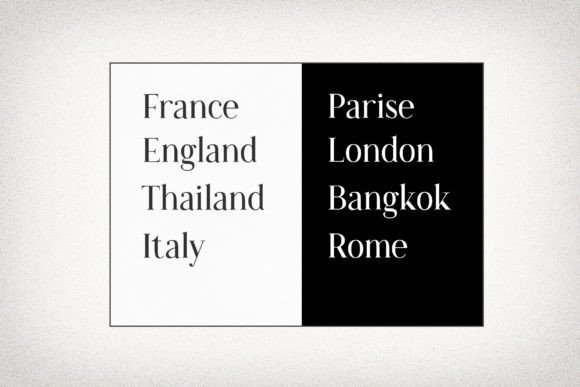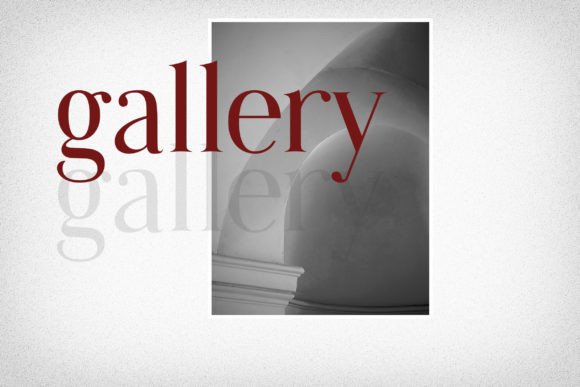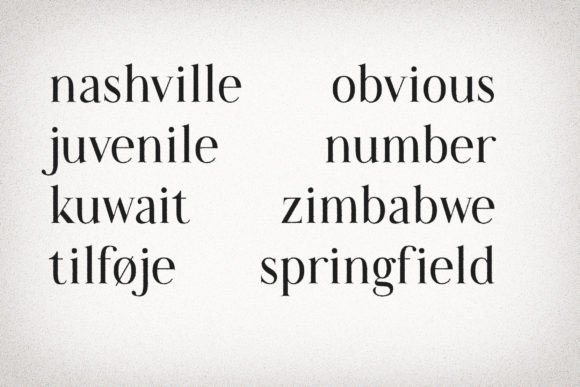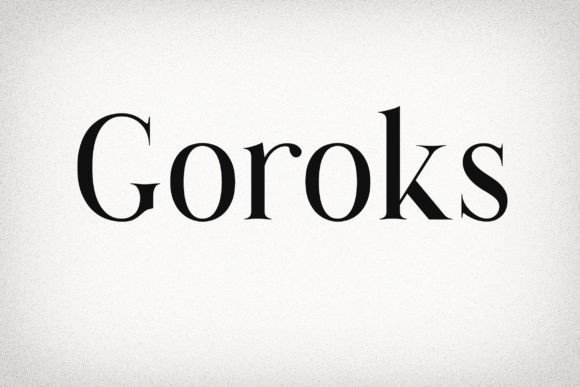
Introduction to Goroks Font
Goroks is an elegant serif font, perfect for headlines, and big text.
It looks beautiful on a variety of designs requiring a personalized style, such as posters, logos, product packaging, and more .
Goroks Font offers exceptional quality and versatility, making it a valuable addition to your design toolkit. Whether you’re creating for personal projects or commercial use, Goroks Font delivers professional results.